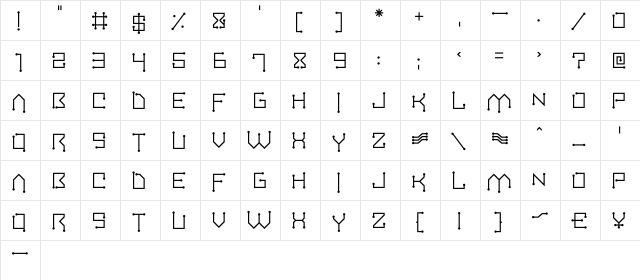
Circuitboard Regular
Design Context for Circuitboard Typeface
Circuitboard is a composed and adaptable typeface that performs quietly and consistently across a wide range of design contexts.